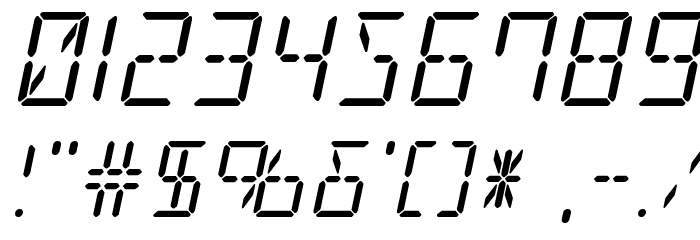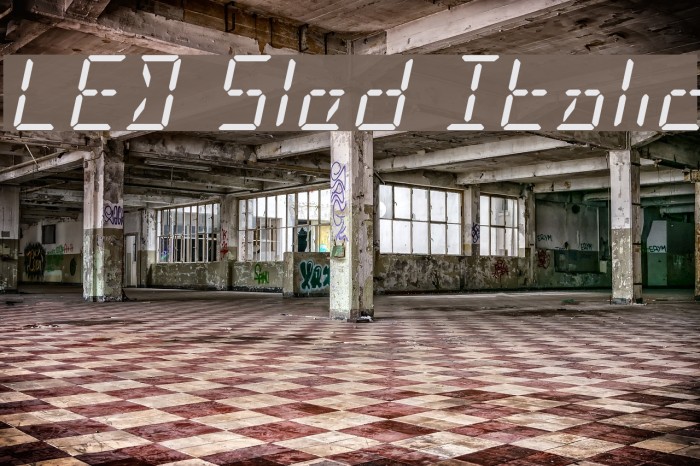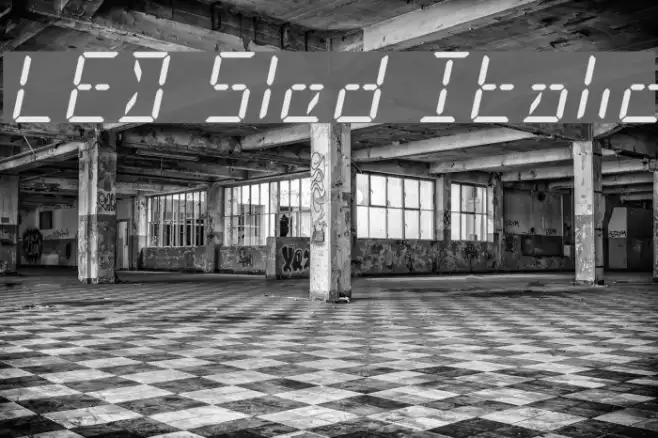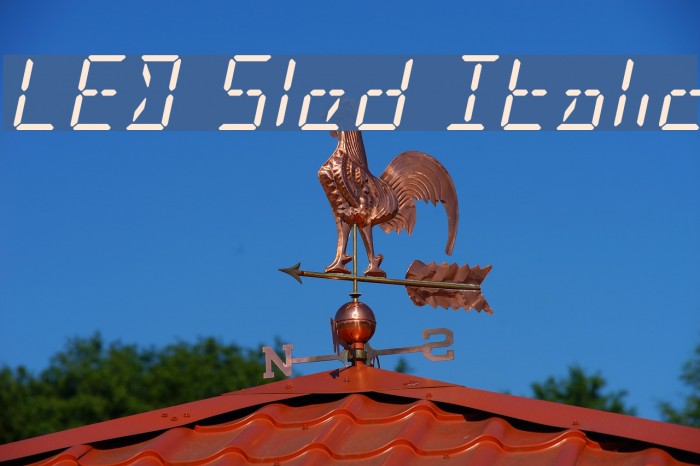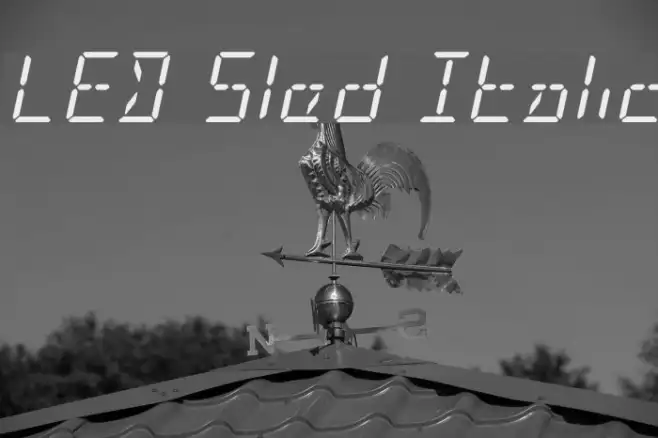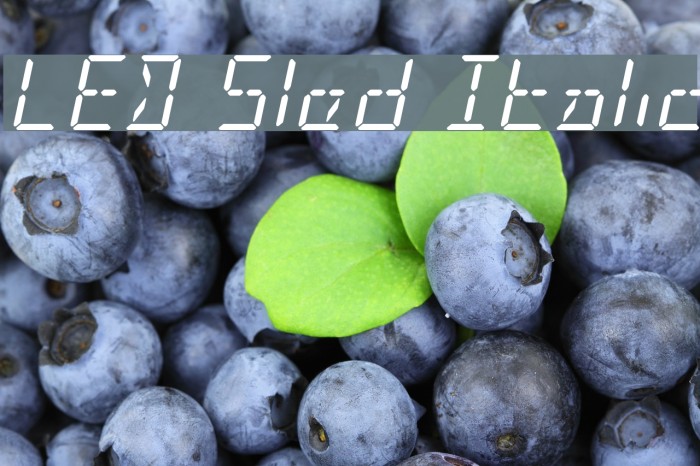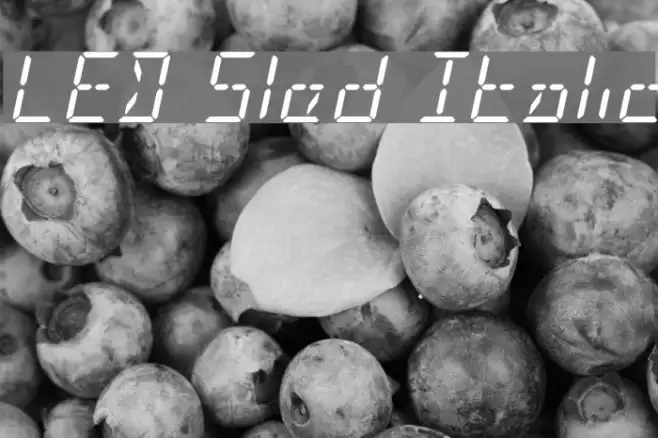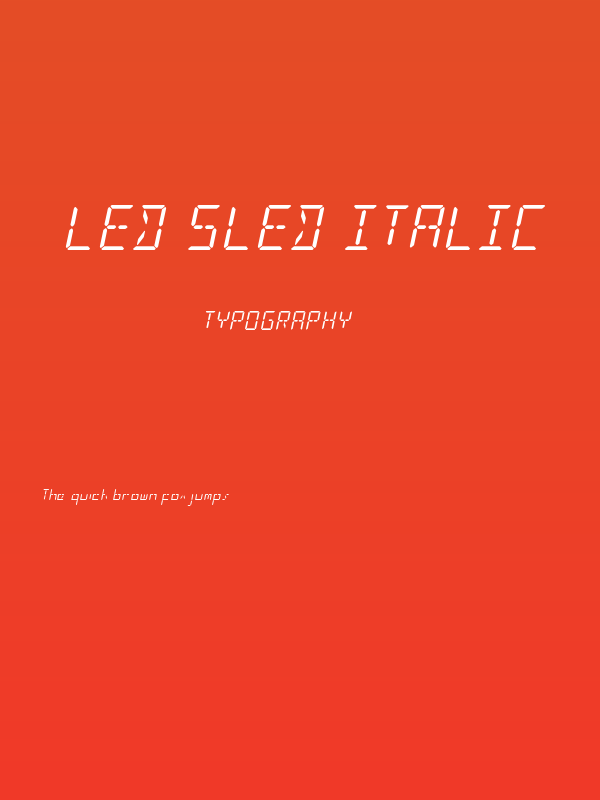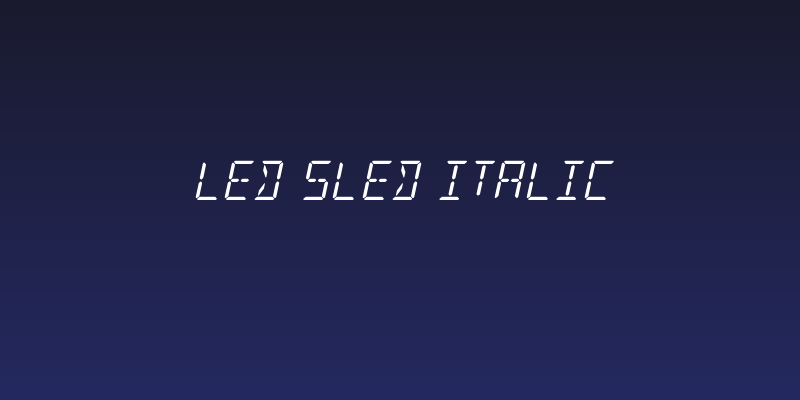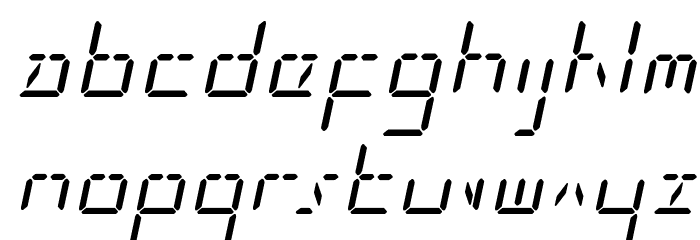
LED Sled Italic Font
LED Sled Italic Description
This font features a futuristic, digital aesthetic reminiscent of LED displays. The characters are composed of segmented lines, creating a geometric and angular appearance. The italic style adds a dynamic slant, enhancing its modern and tech-inspired look. Each letter and number is distinctly formed with sharp edges and a consistent stroke width, emphasizing clarity and readability. The font's unique design makes it ideal for projects that require a digital or high-tech feel, such as technology branding, digital interfaces, or sci-fi themed graphics.
| Proposed Projects | Ideal for technology branding, digital interfaces, sci-fi themed graphics, and modern advertising. |